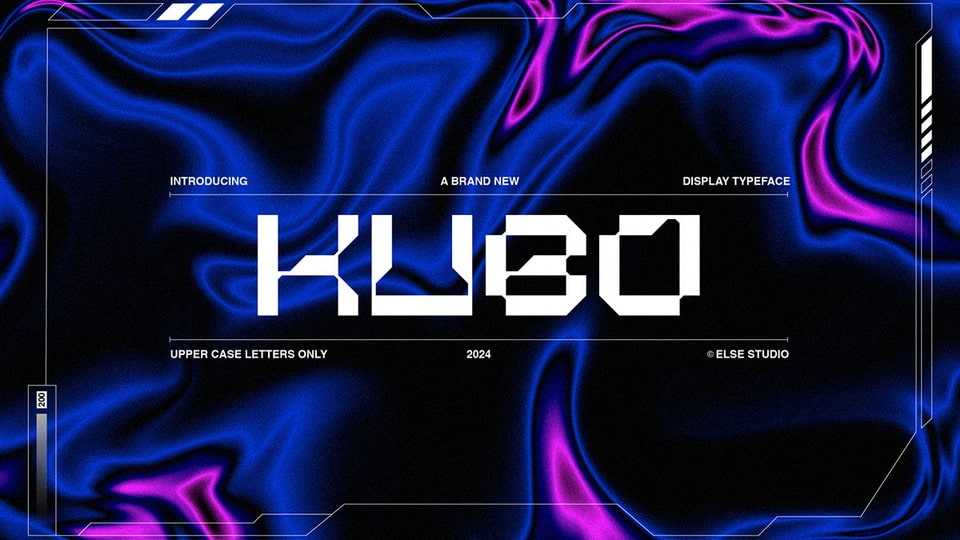
Download Kubo font, your new favorite geometric display typeface. It has been crafted using bold geometric shapes and in a techno-futuristic theme, thus capturing the essence of modern innovation.
Designer: Else Studio